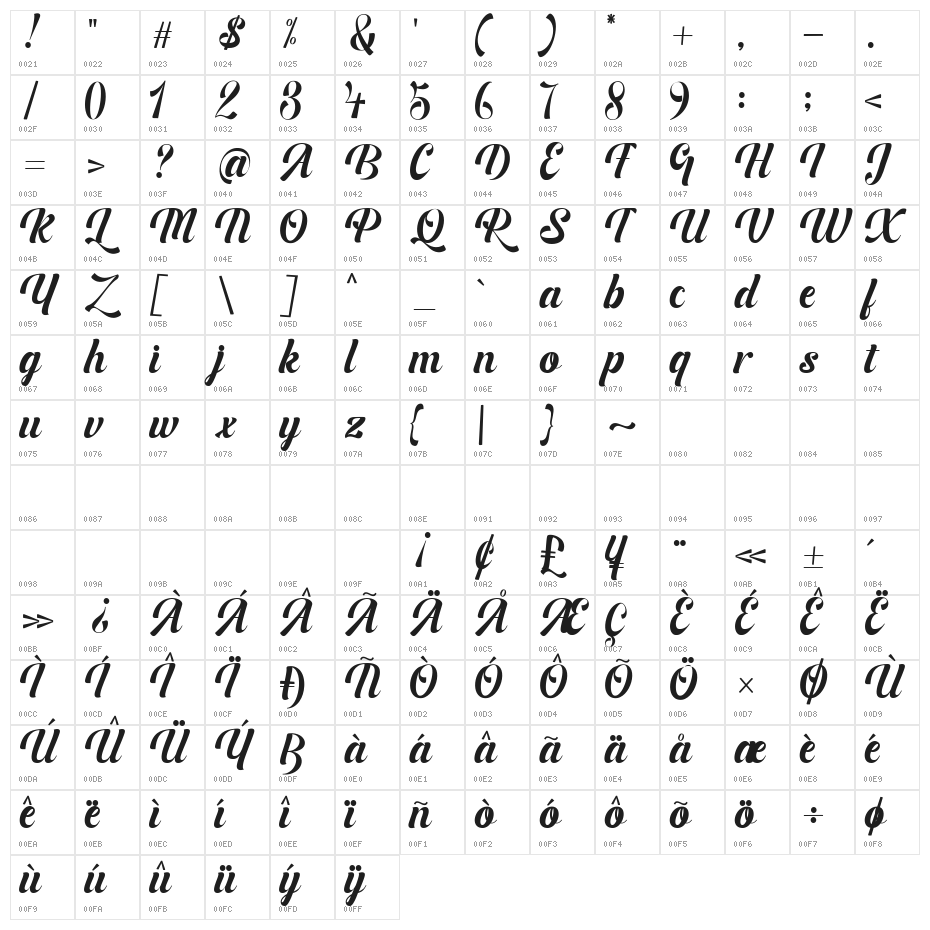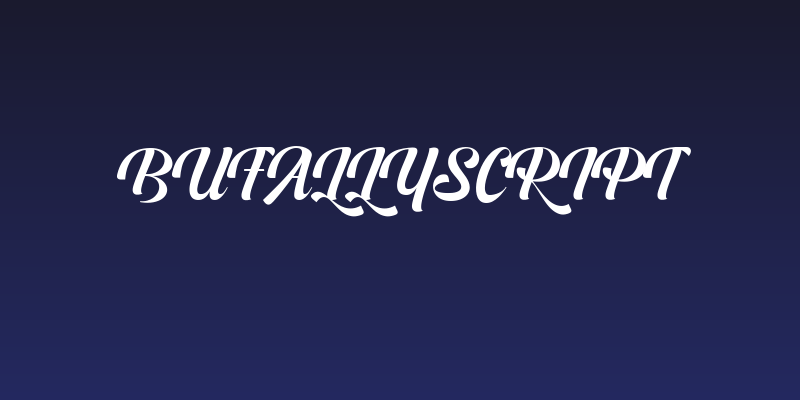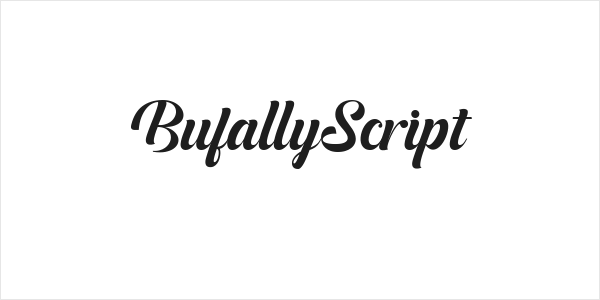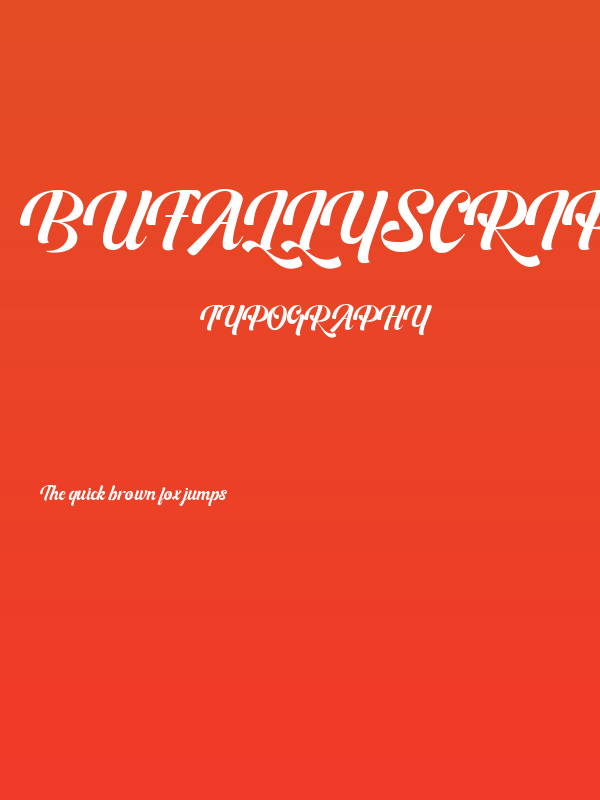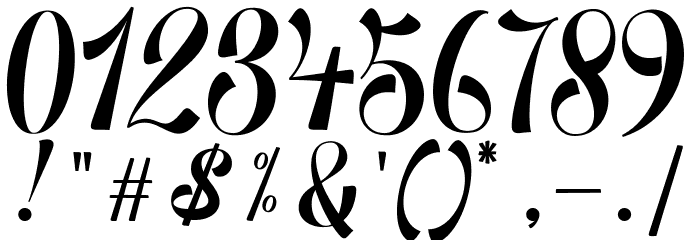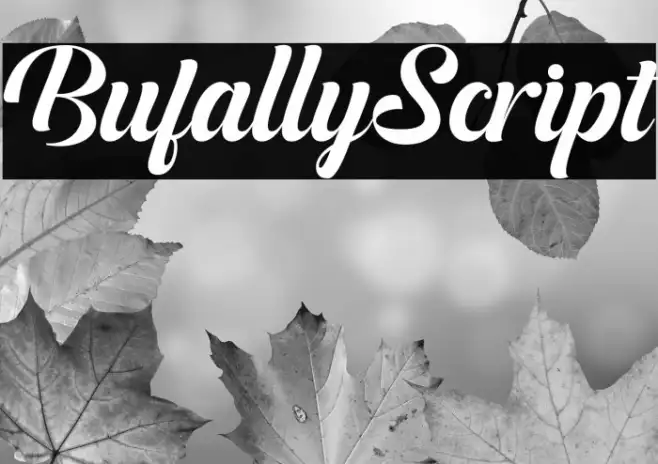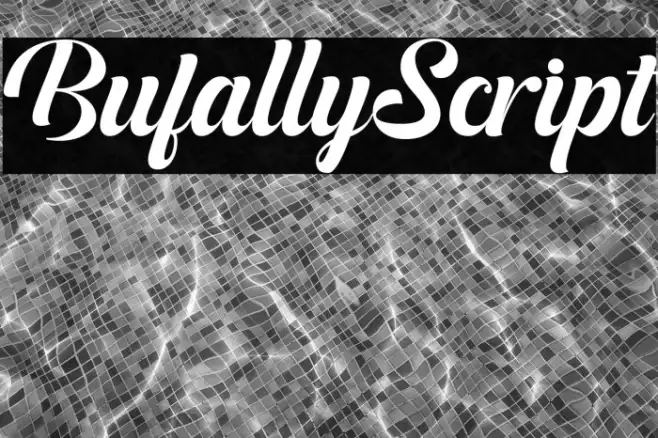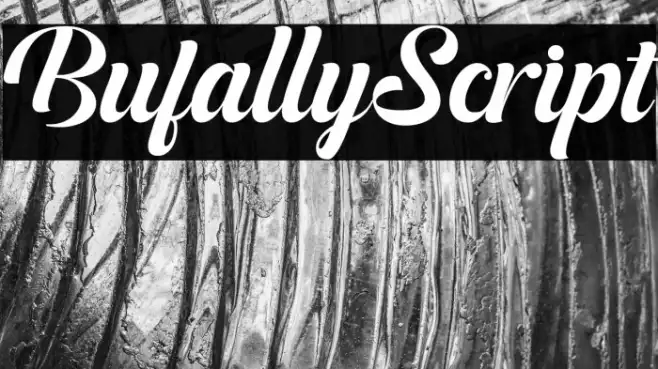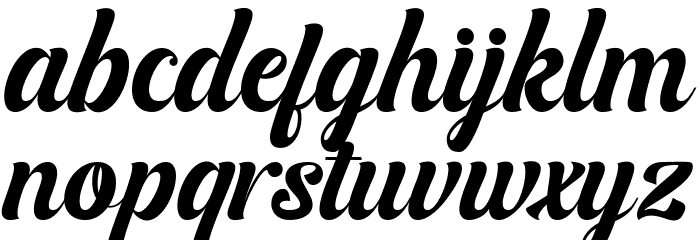
BufallyScript Font
BufallyScript Description
This font exudes a dynamic and elegant style with its flowing script design. The characters are crafted with a smooth, cursive flair, featuring high contrast between thick and thin strokes. The uppercase letters are bold and sweeping, while the lowercase letters maintain a consistent, graceful flow. The numerals are distinct and stylish, complementing the overall aesthetic. Special characters are designed with the same attention to detail, adding to the font's versatility. Ideal for projects that require a touch of sophistication and creativity.
| Proposed Projects | Perfect for wedding invitations, branding, logos, and elegant packaging designs. |